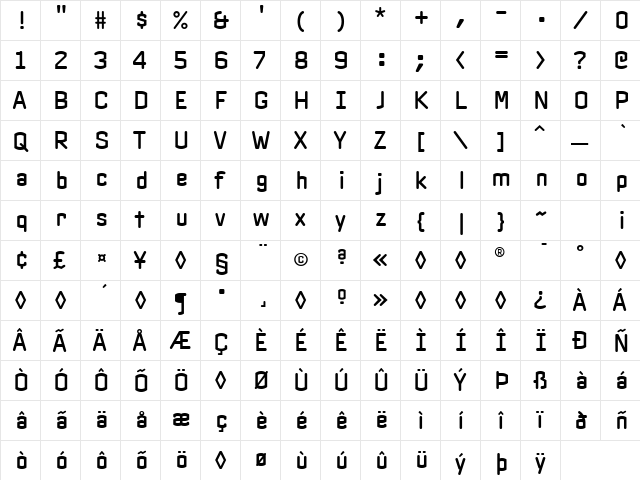
Clicker Regular Font Preview
Clicker Regular
Clicker Regular Font Details
Design Context for Clicker Typeface
Clicker is a composed and adaptable typeface that performs quietly and consistently across a wide range of design contexts.